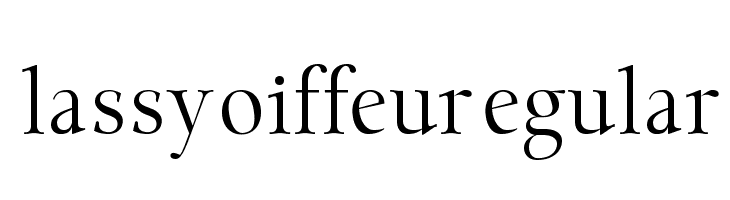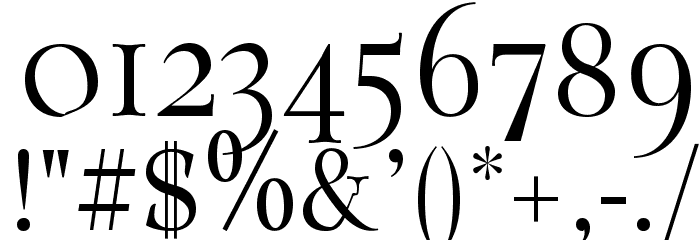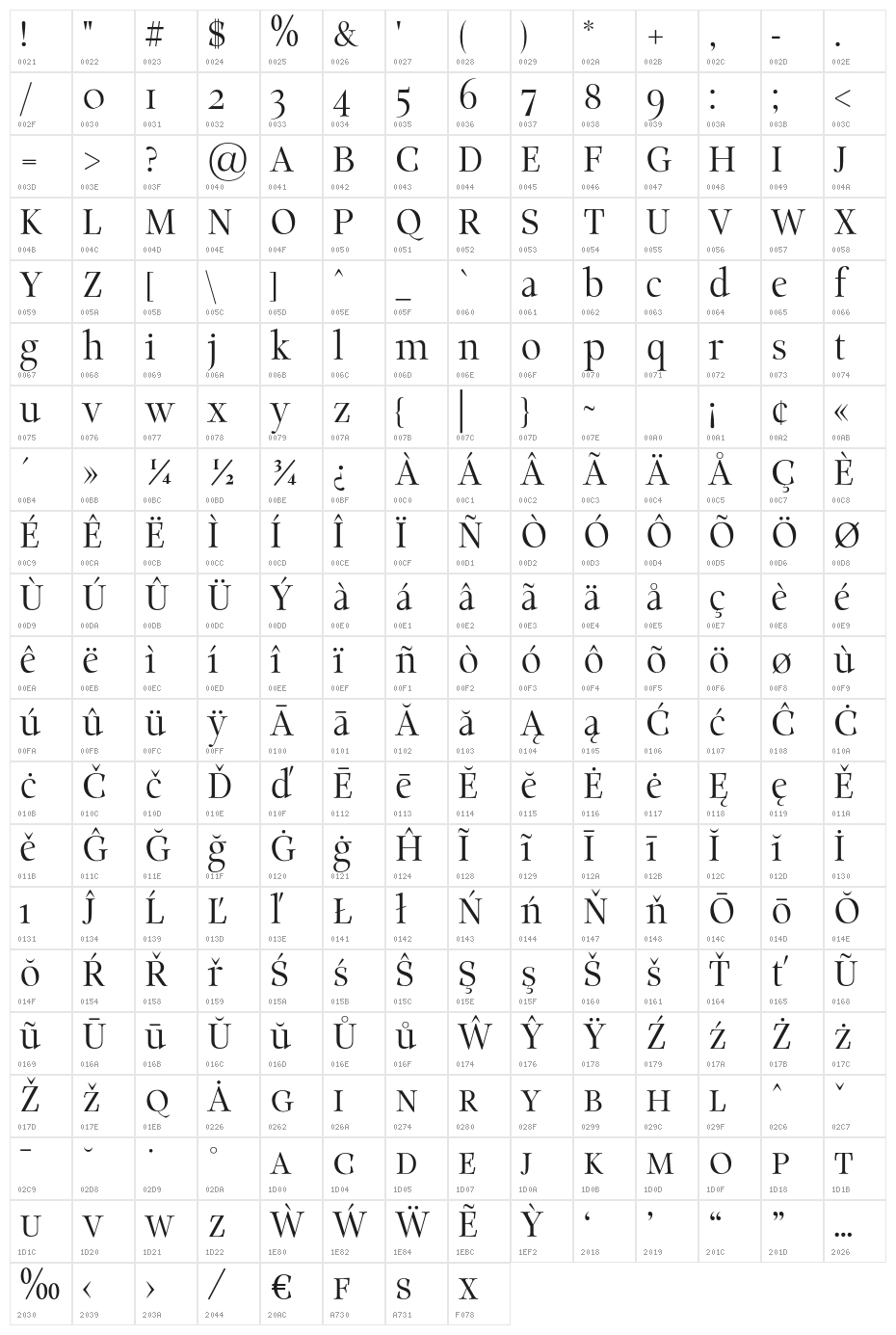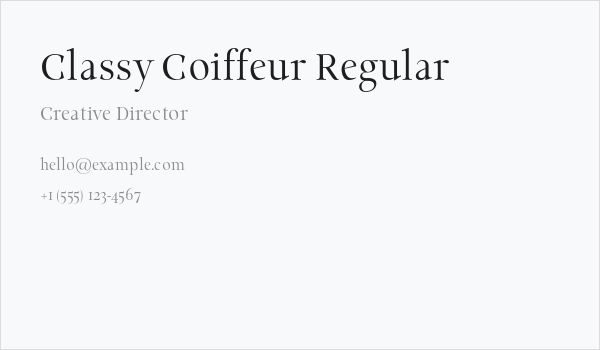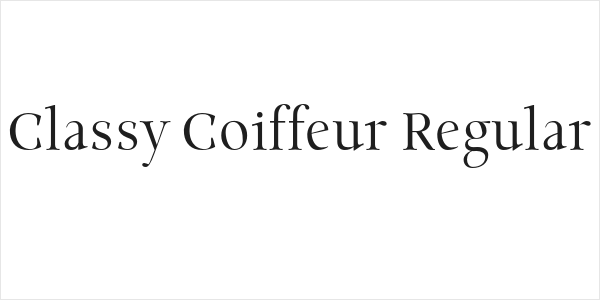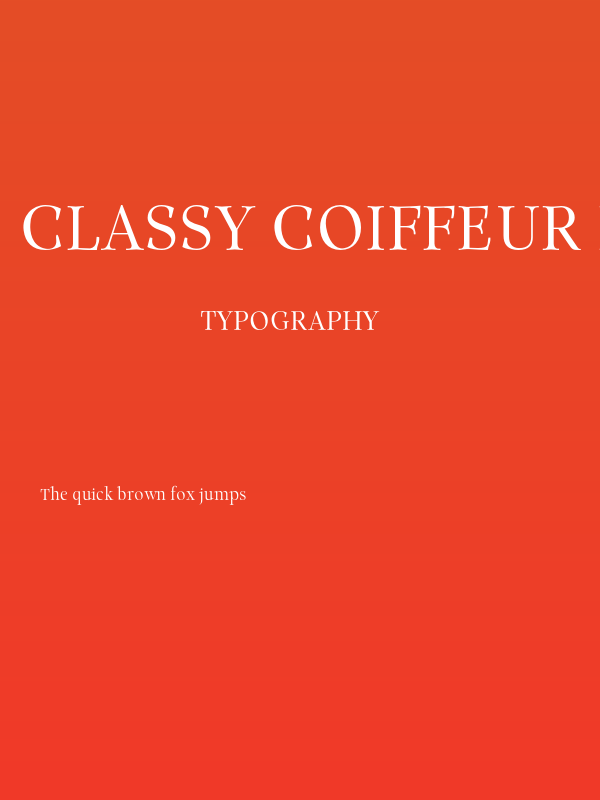
Classy Coiffeur Regular Font
Classy Coiffeur Regular Description
This font exudes a classic elegance with its refined serif style. The characters are well-proportioned, featuring delicate serifs that add a touch of sophistication. The uppercase letters stand tall with a slight flair, while the lowercase letters maintain a consistent flow, enhancing readability. The numerals are distinct and balanced, complementing the overall aesthetic. Special characters are thoughtfully designed, maintaining the font's cohesive look. This typeface is versatile, suitable for both formal and creative applications, making it a timeless choice for designers.
| Proposed Projects | Ideal for editorial design, book covers, wedding invitations, and luxury branding. |